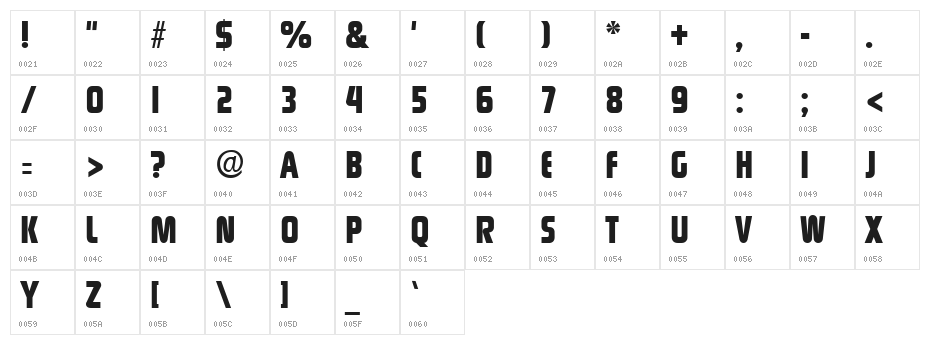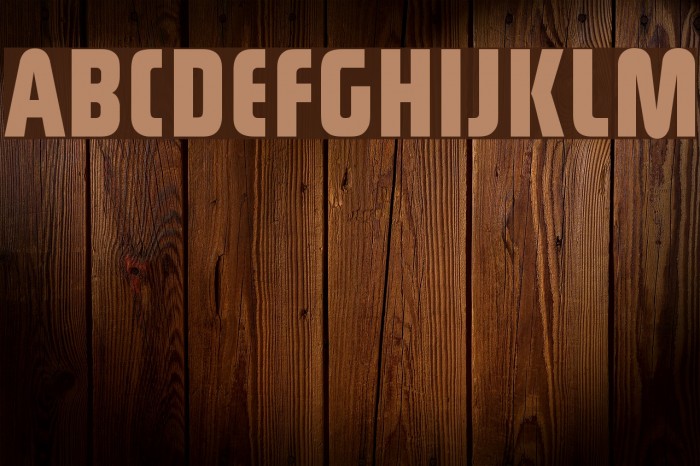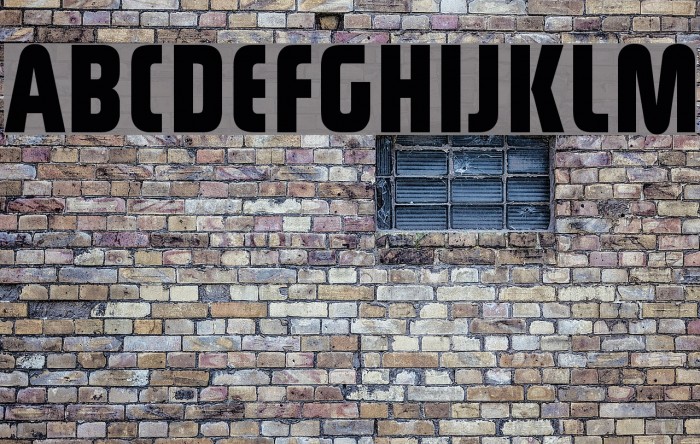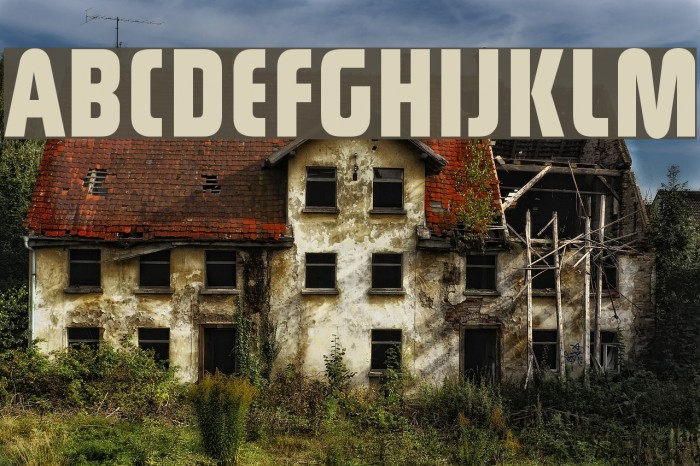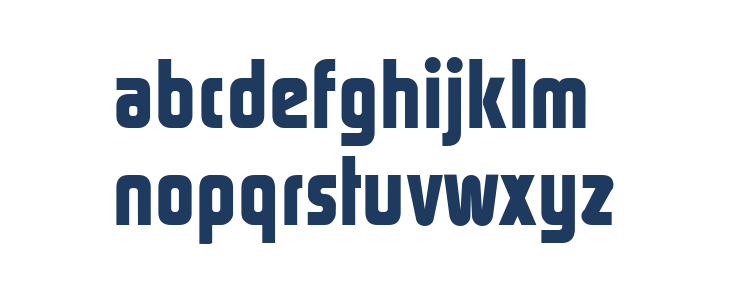
Rinehart Bold Font
Rinehart Bold Description
This font features a bold and impactful design with strong geometric shapes and a modern aesthetic. The uppercase letters are uniform in height, creating a cohesive and structured appearance. The lowercase letters maintain a similar weight, ensuring readability while retaining a distinctive style. Numbers are clear and consistent, matching the boldness of the alphabet characters. Special characters are well-defined, complementing the overall design. The font's boldness and clarity make it suitable for attention-grabbing headlines and branding materials.
| Proposed Projects | Ideal for branding, headlines, posters, and advertising materials that require a strong visual impact. |